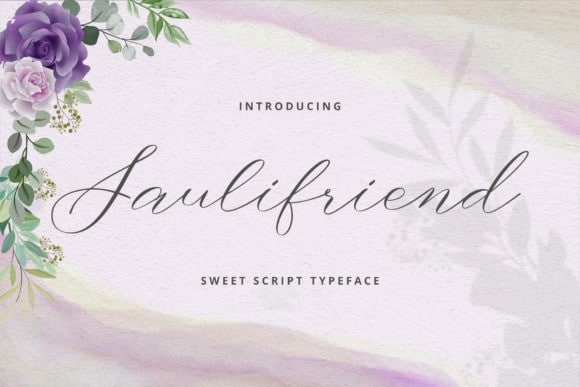
Saulifriend Calligraphy Font
Introducing Saulifriend Calligraphy Font. This beautiful script font is for you who needed an elegance and stylish for your design. It’s designed and shared by sartstudio. It looks stunning on wedding invitations, thank you cards, quotes, greeting cards, logos, business cards and every other design which needs a handwritten touch. It features a varying baseline, smooth lines, gorgeous glyphs and stunning alternates.